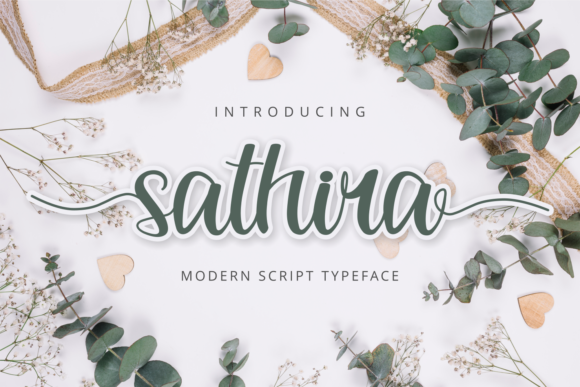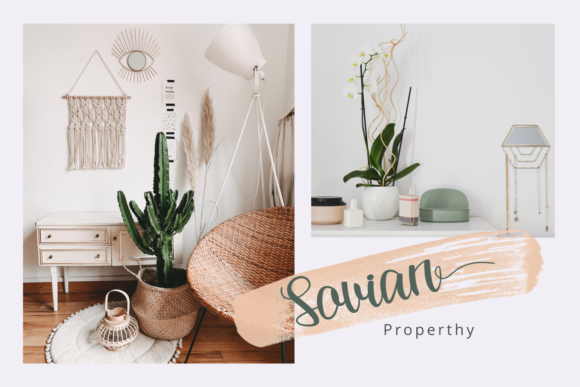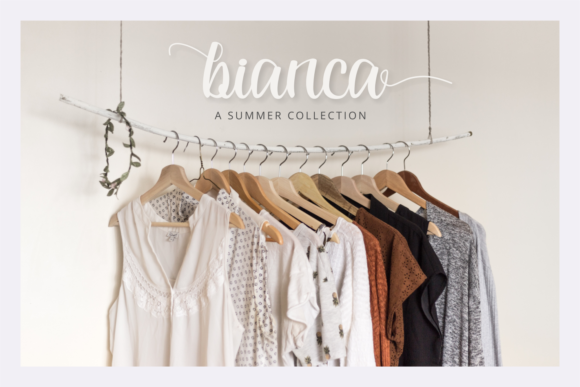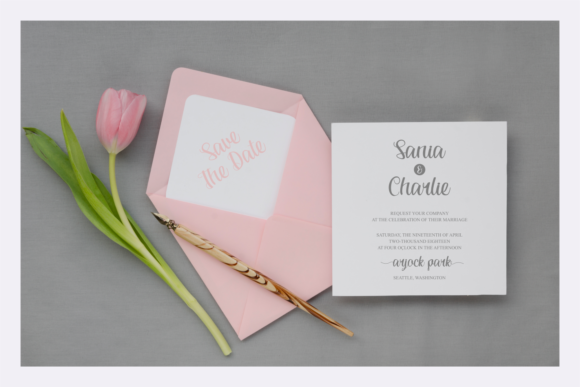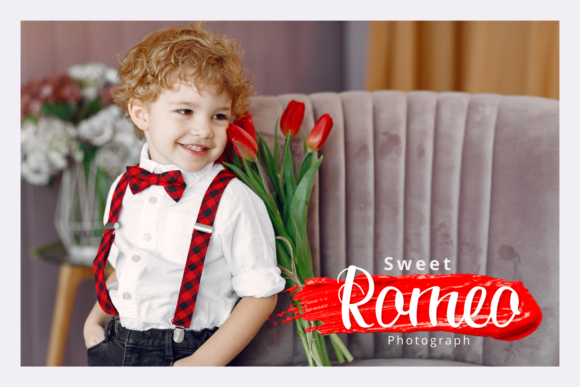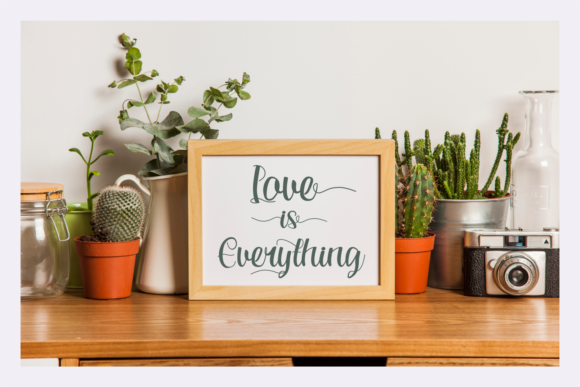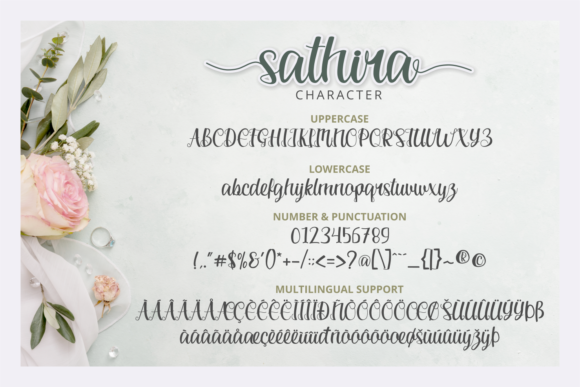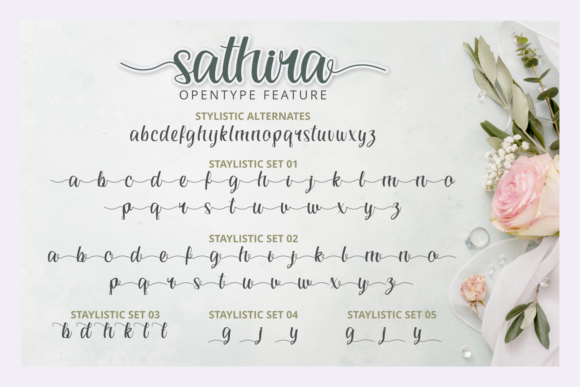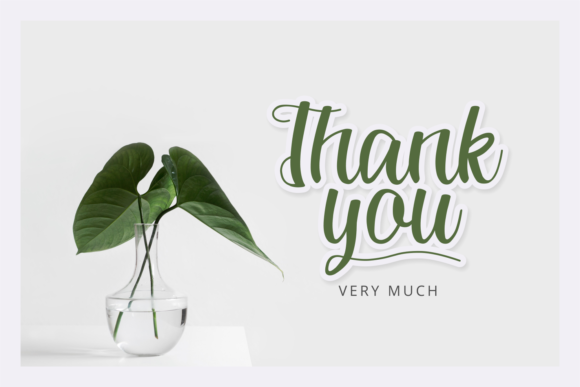
Sathira Font
About Sathira Font
Sathira is a timeless, unique handwritten font. It s PUA encoded which means you can access all of the glyphs and swashes with ease! It features a varying baseline, smooth lines, gorgeous glyphs and stunning alternates.
Sathira looks stunning on so many different projects such as wedding invitations, beautiful stationary art, eye-catching social media posts, cute greeting cards, and anything you can think of.